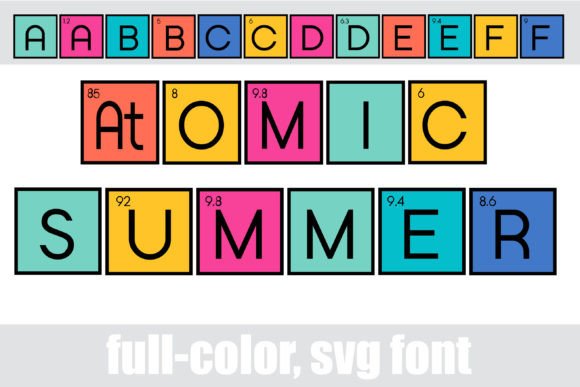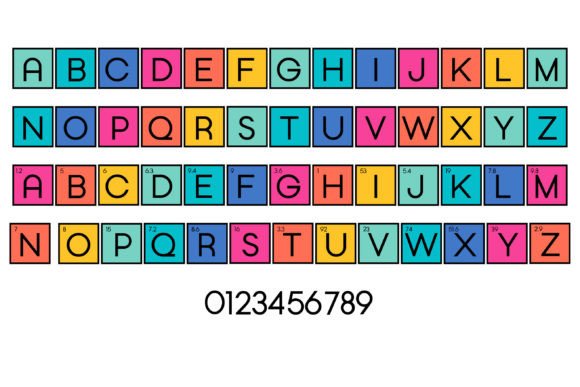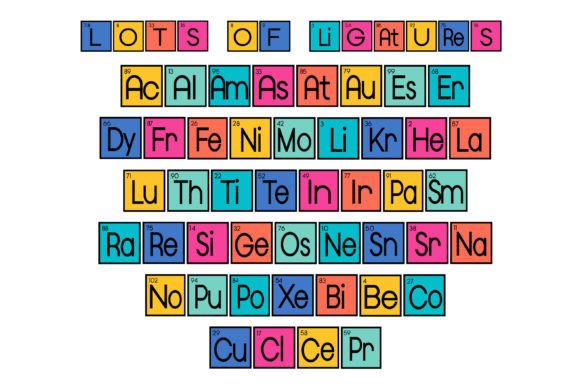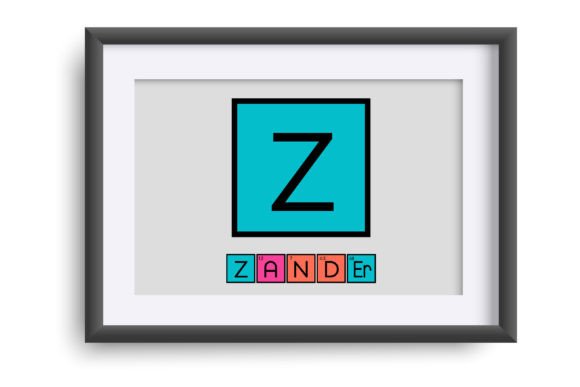
Atomic Summer Font
About the Atomic Summer Font
Get ready to be inspired by Atomic Summer Font, a fresh and dynamic typeface for modern creators. This full-color font features the periodical table of elements in a summer color palette. The uppercase has no atomic numbers and the lowercase does. There are a number of fun ligatures like what is seen in sample (At, Al). There is an alt case with additional colors you can access through your system’s character map. This font works best for titles, displays, posters and more. Please note color fonts will show as black in non compatible programs. This font type is compatible with Silhouette Studio.